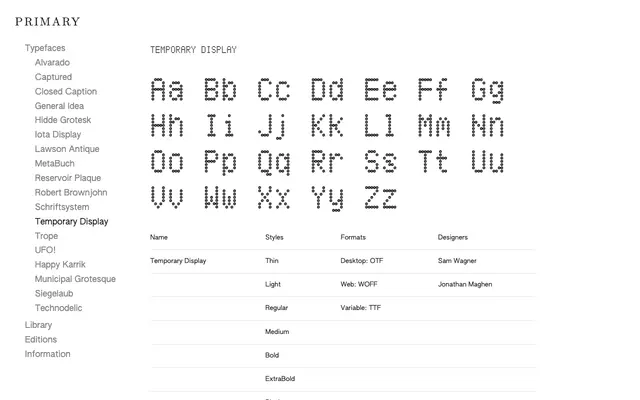
Temporary Display
Primary Foundry · Sam Wagner, Jonathan Maghen
A fixed-width, variable-weight display typeface drawn from electronic highway signage and the work of artist Shannon Ebner.
Built on the visual language of electronic road signs and Shannon Ebner's text-based art practice, Temporary Display runs across seven weights from Thin to Black, all accessible through a single variable TTF. The fixed-width construction gives it a consistent mechanical rhythm across settings, and 274 glyphs cover lining, old style and contextual figures alongside extensive alternates. Desktop OTF files are available free for self-initiated, non-profit and cultural projects.
Described explicitly as a fixed-width display typeface inspired by electronic highway signage, placing it firmly in the display category with a monospaced construction as its defining structural feature.